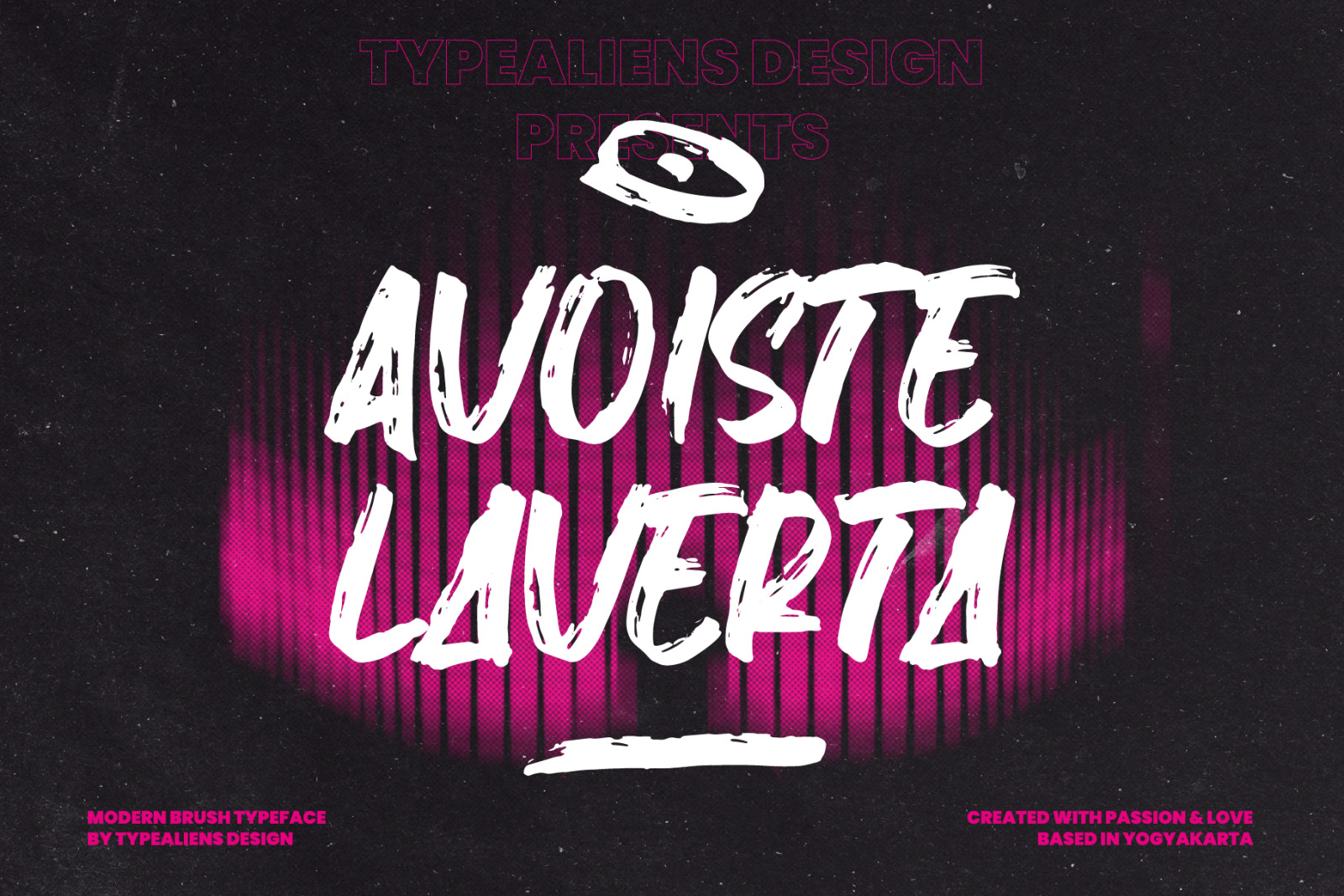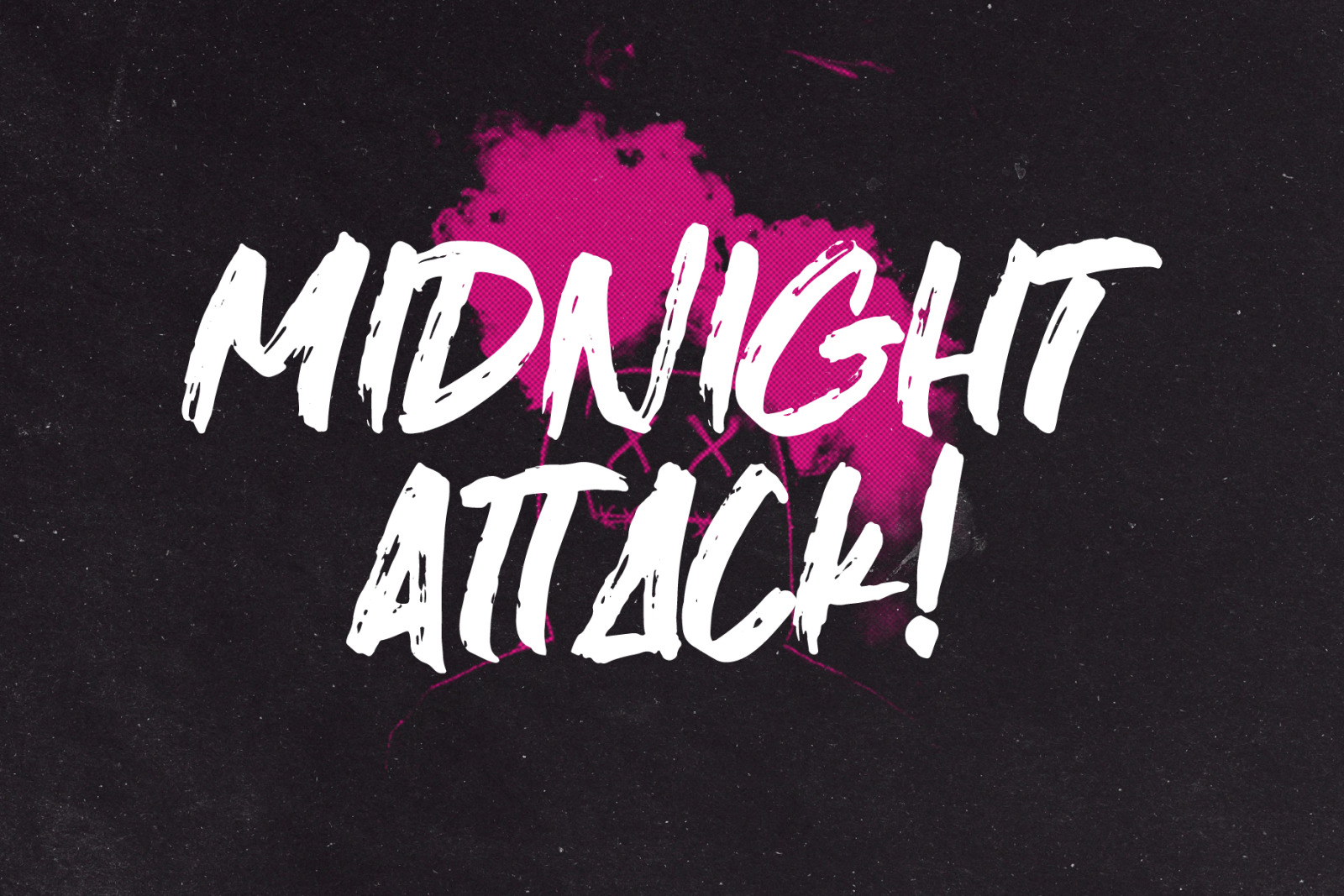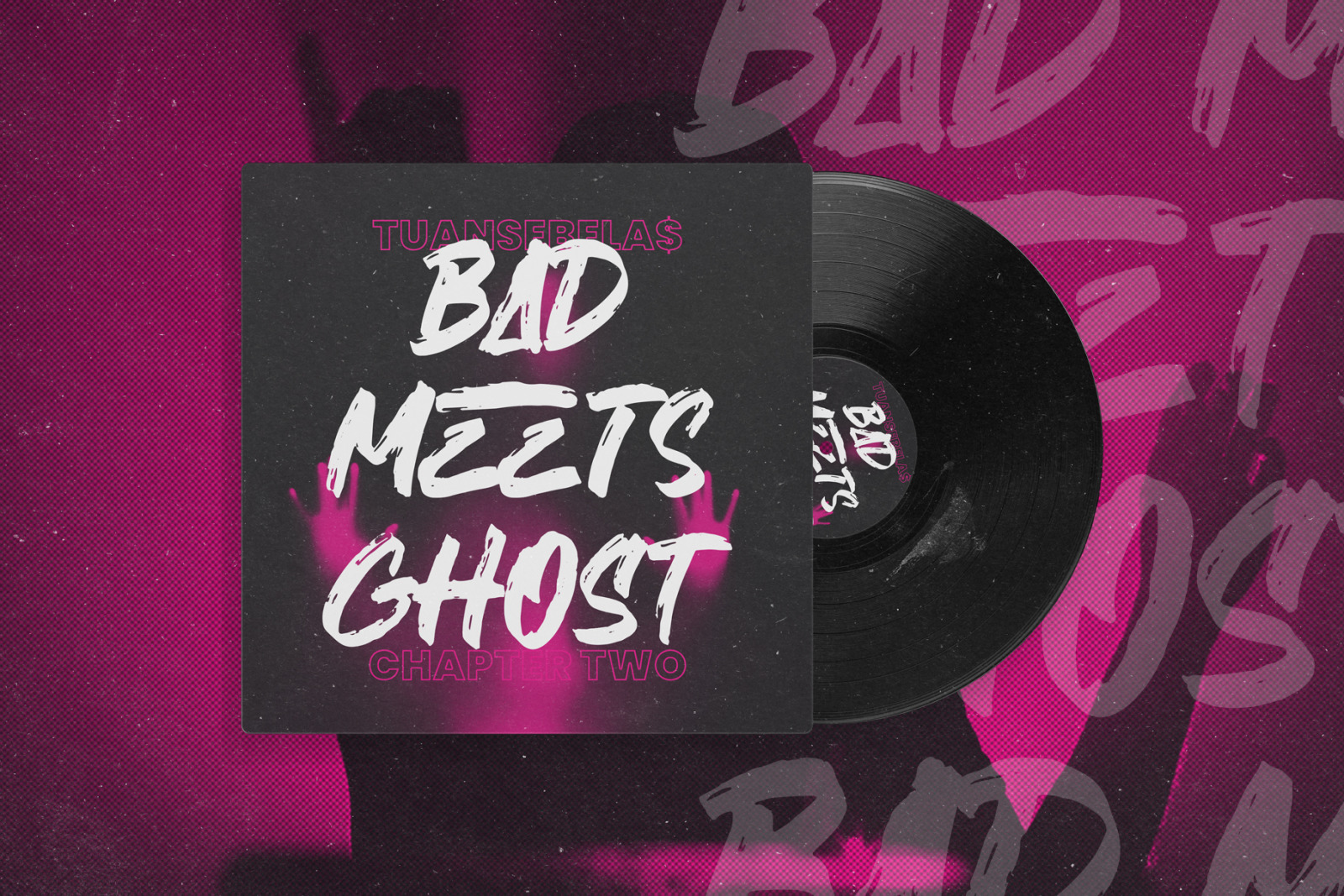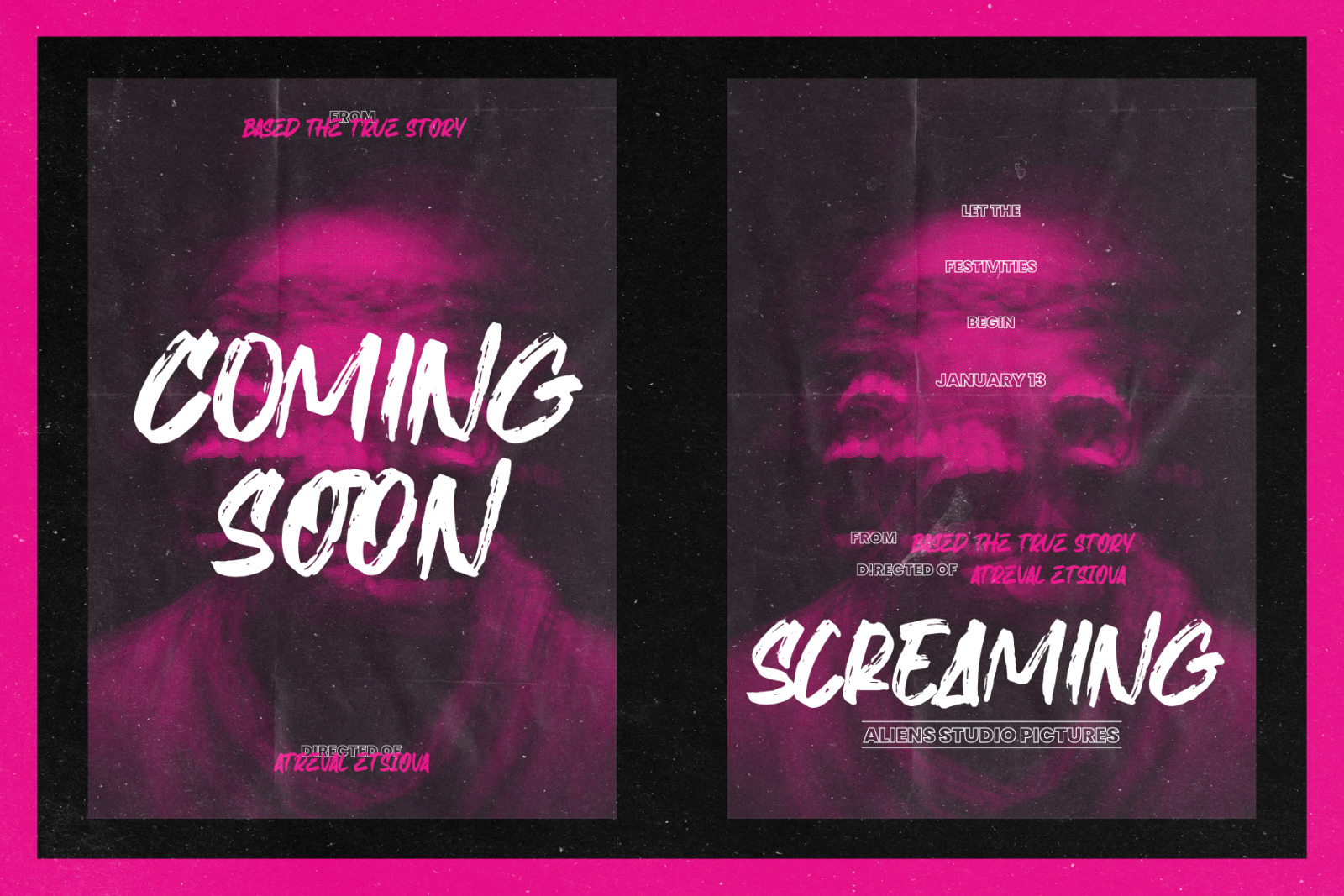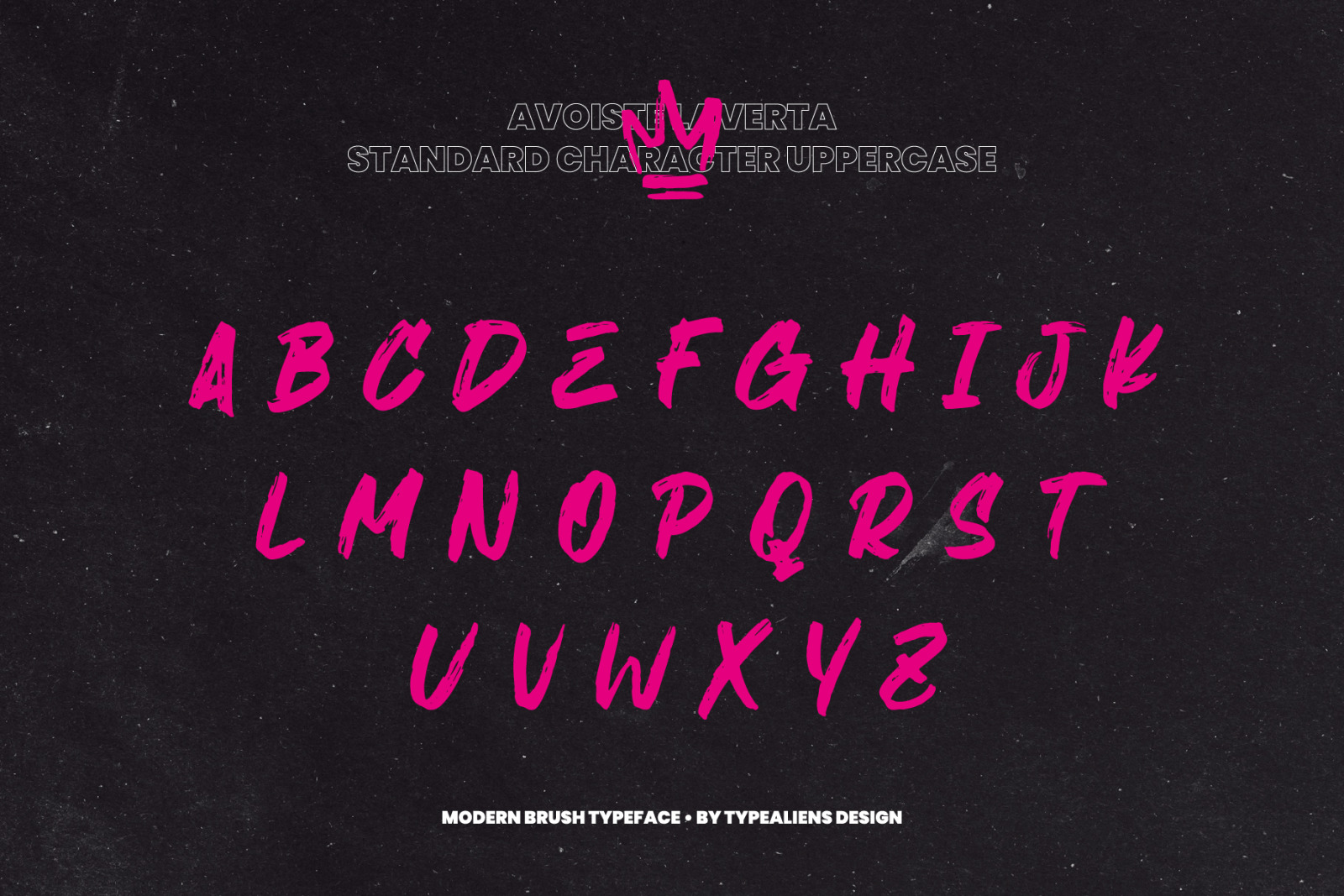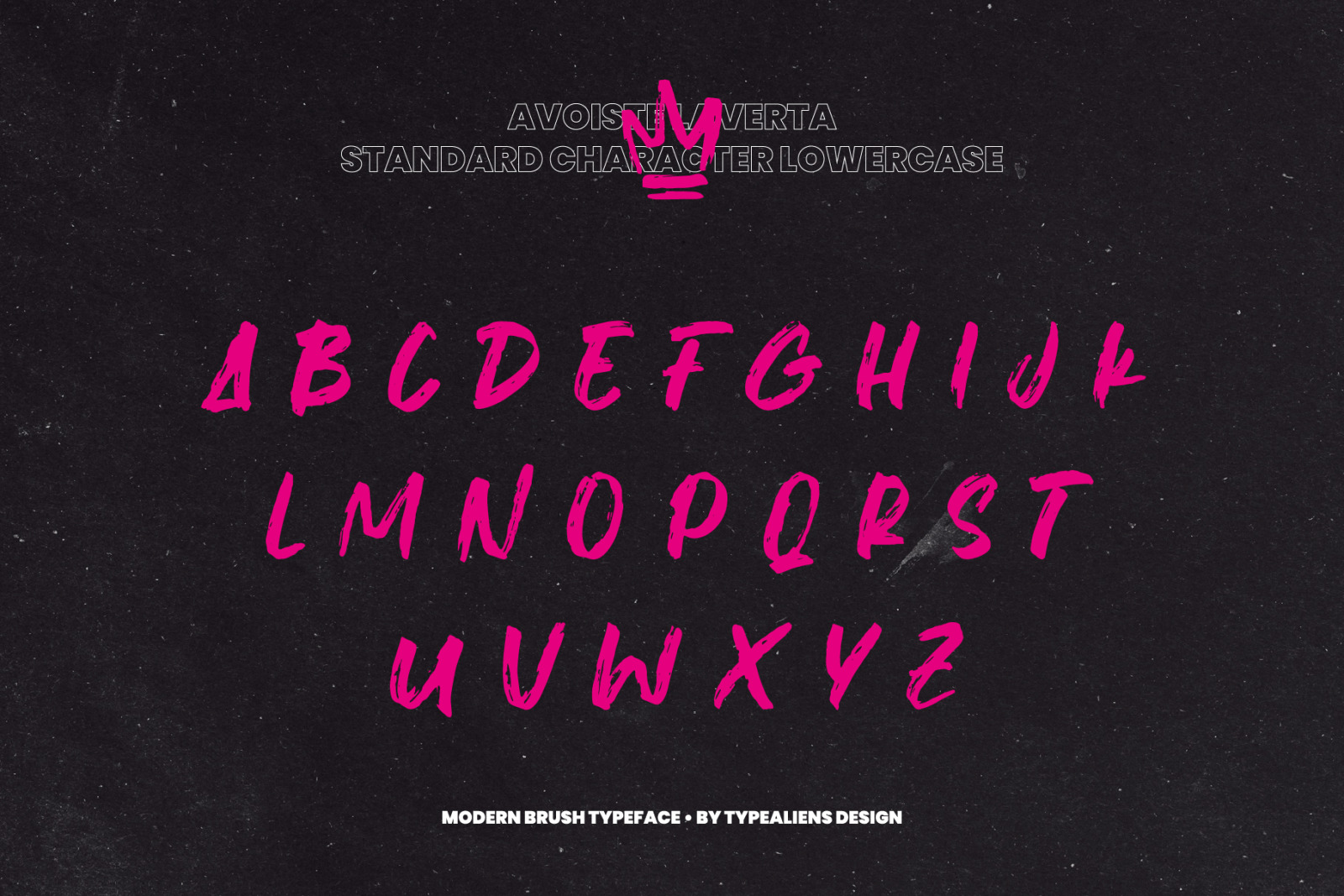
Avoiste Laverta Font
AVOISTE LAVERTA is a display font with a brush texture. Modern in nature suitable for social media design and branding. This font is allcaps font.